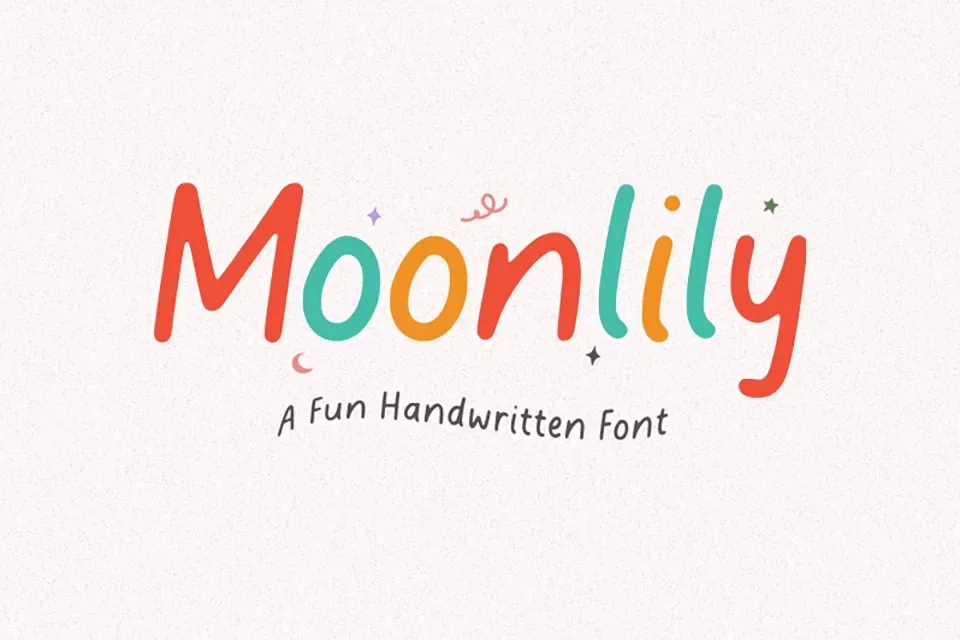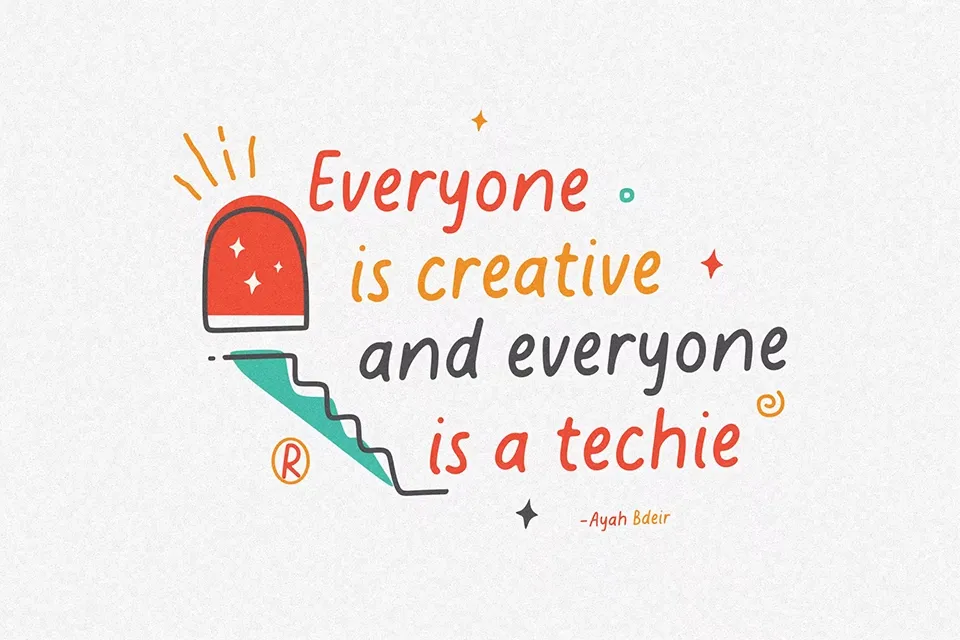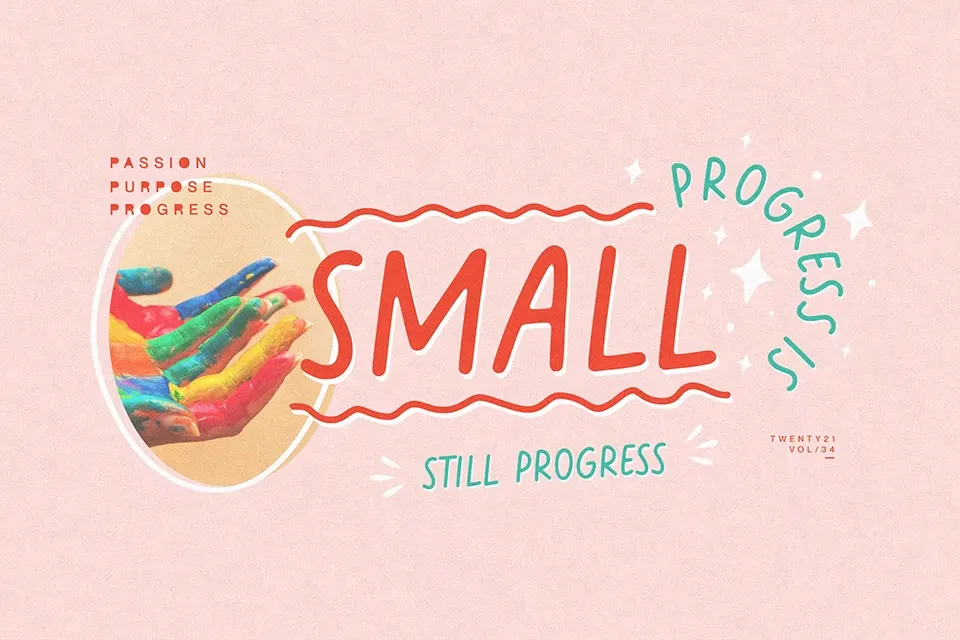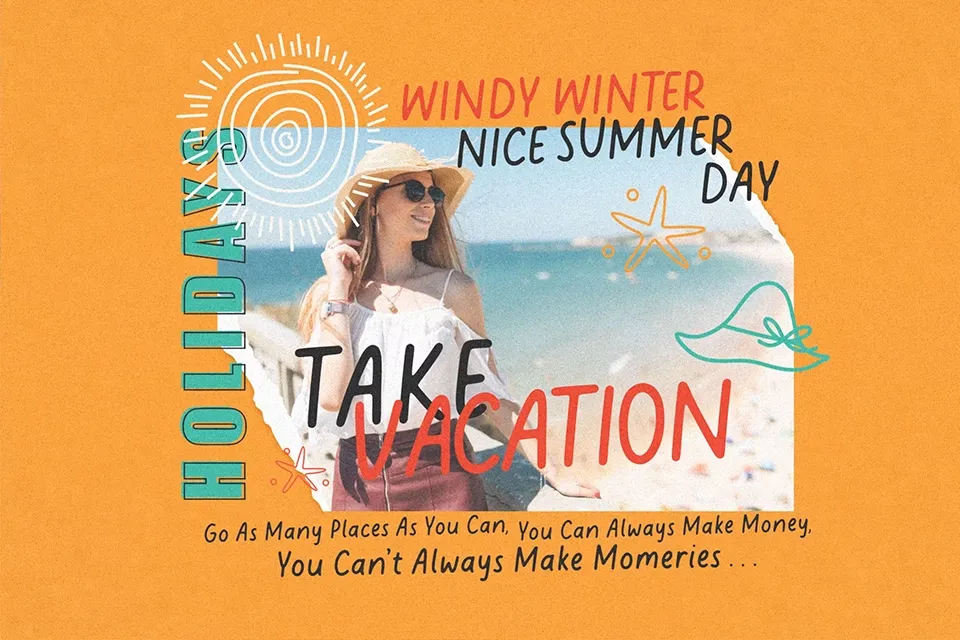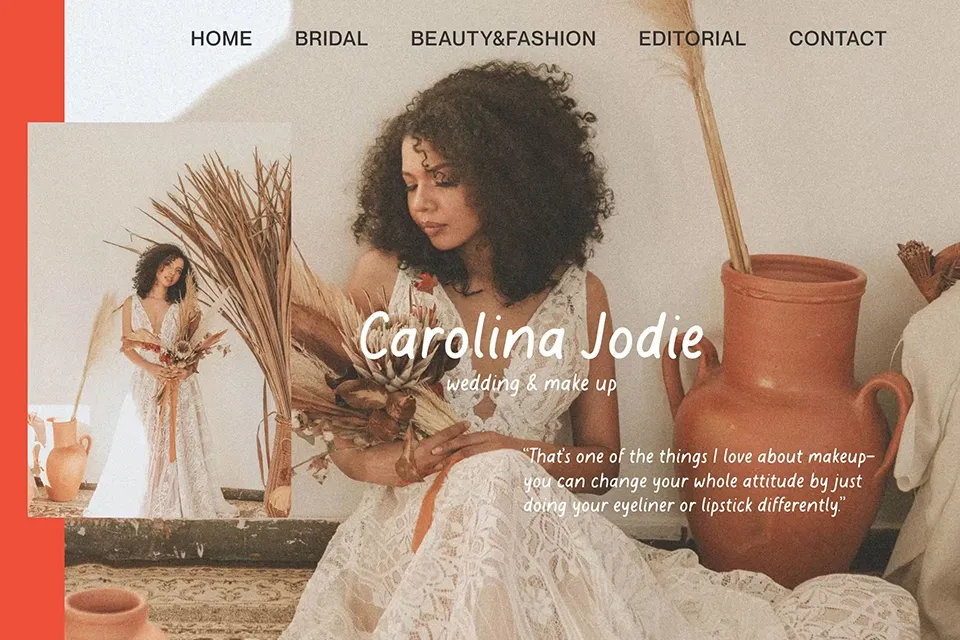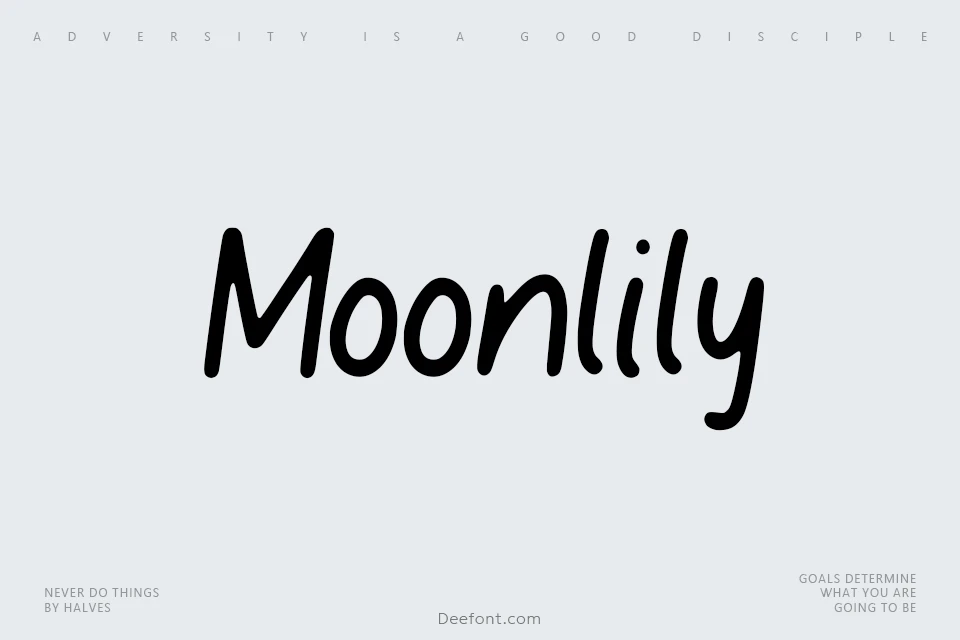
Moonlily Font
Moonlily Font is a fun, cute, and colorful handwritten font that embodies playfulness and authenticity. It’s the perfect choice for children’s activities, school projects, logos, wedding invitations, headings, t-shirts, letterheads, signage, posters, branding, greeting cards, book titles, packaging, and more. Moonlily includes uppercase and lowercase letters, numbers, punctuation, symbols, and multilingual support, making it versatile for a wide range of creative applications.